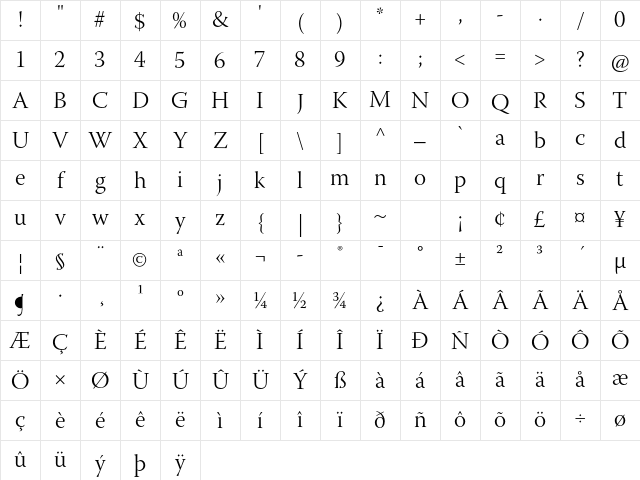
Warnock Pro Light Subhead
Style: Light Subhead
Design Context for Warnock Pro
Warnock Pro is a composed and adaptable typeface that performs quietly and consistently across a wide range of design contexts. Its slender proportions lend an understated elegance to any composition.